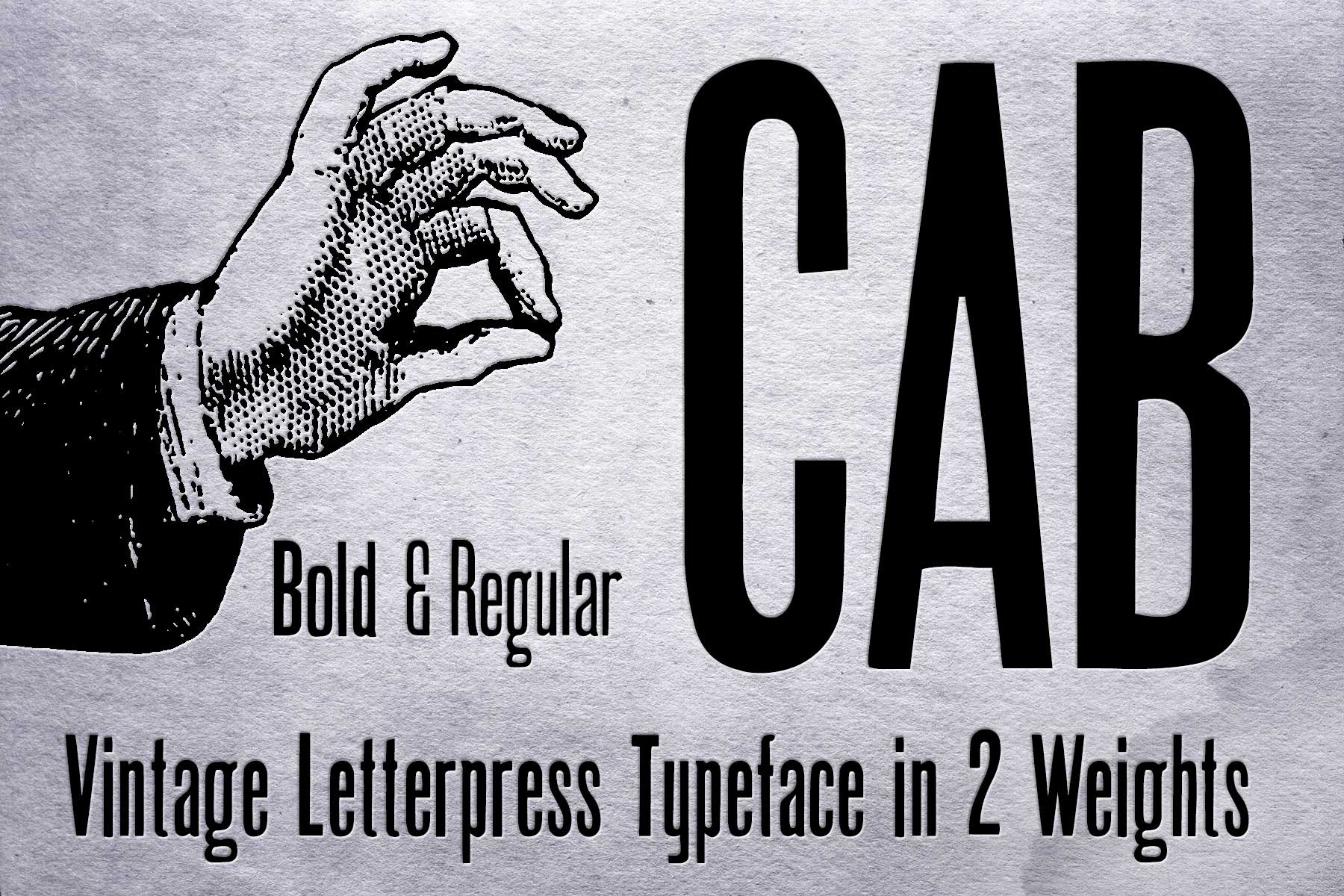
CAB Letterpress font
A letterpress styled font in upper and lower case with two weights, bold and regular. Looks good on Posters, Stationery and on Text Documents. HOT METAL!